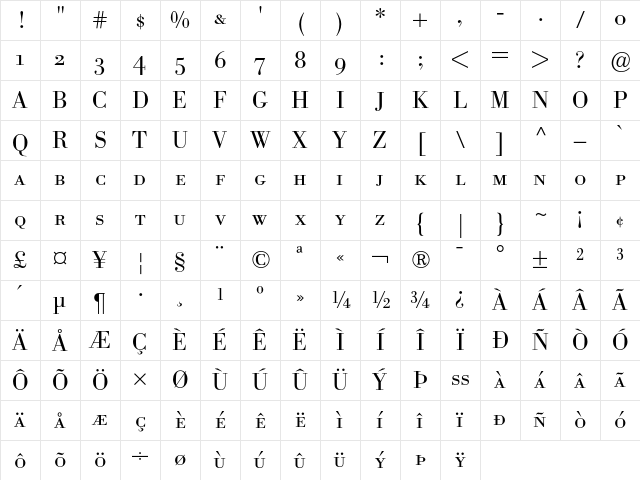
Bodoni BE Light Small Caps & Oldstyle Figures
Style: Light Small Caps & Oldstyle Figures
Bodoni BE Family
Design Context for Bodoni BE
Bodoni BE carries the refined structure of traditional serif typography, with bracketed terminals and considered proportions that communicate credibility and craft. Its slender proportions lend an understated elegance to any composition.